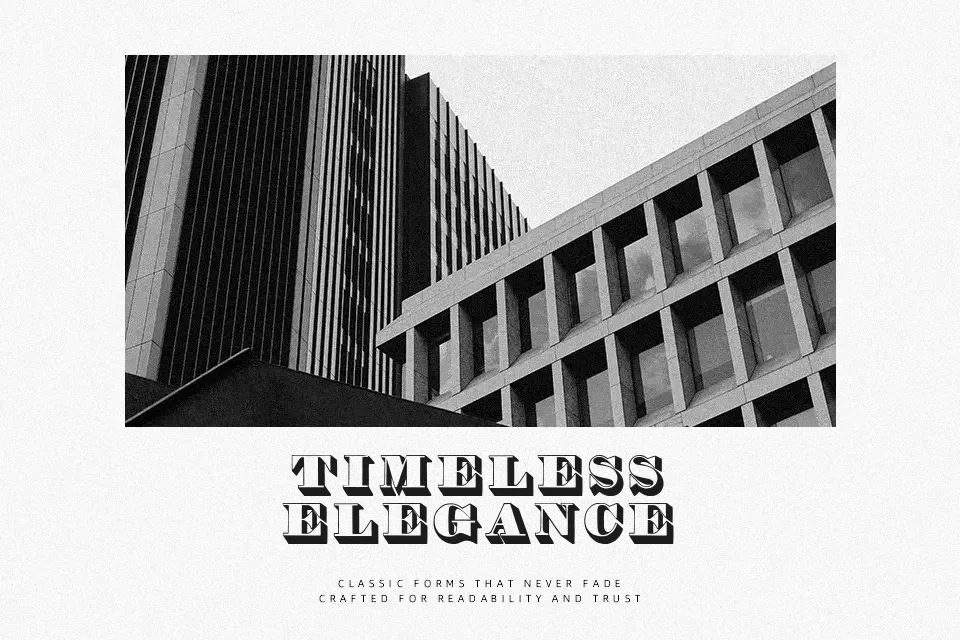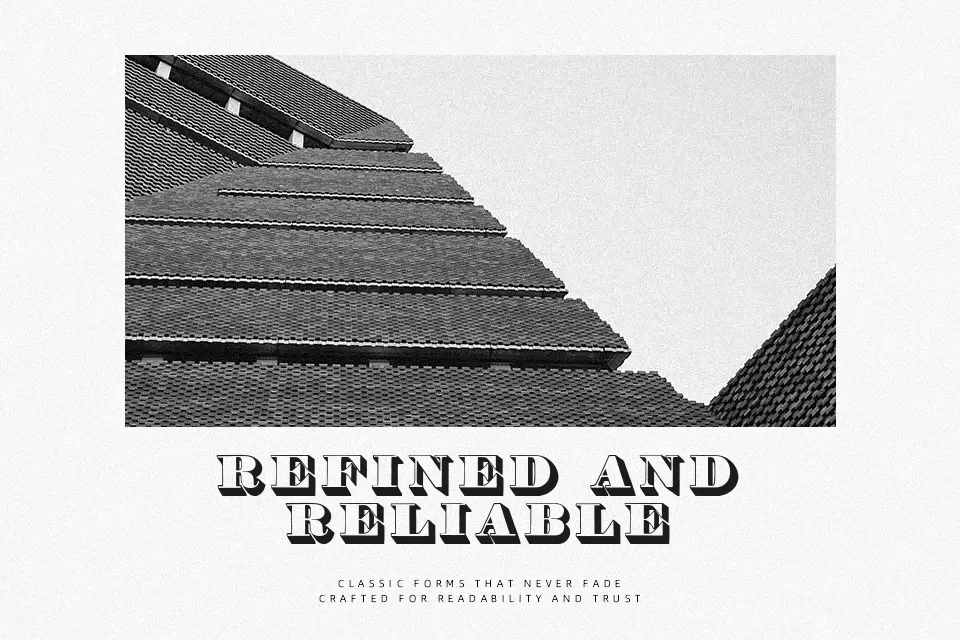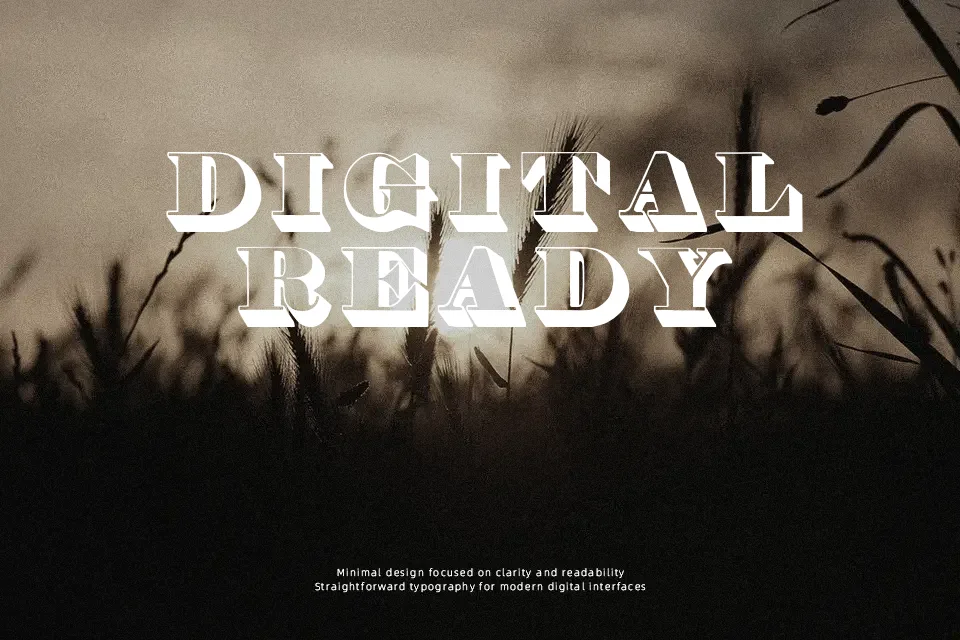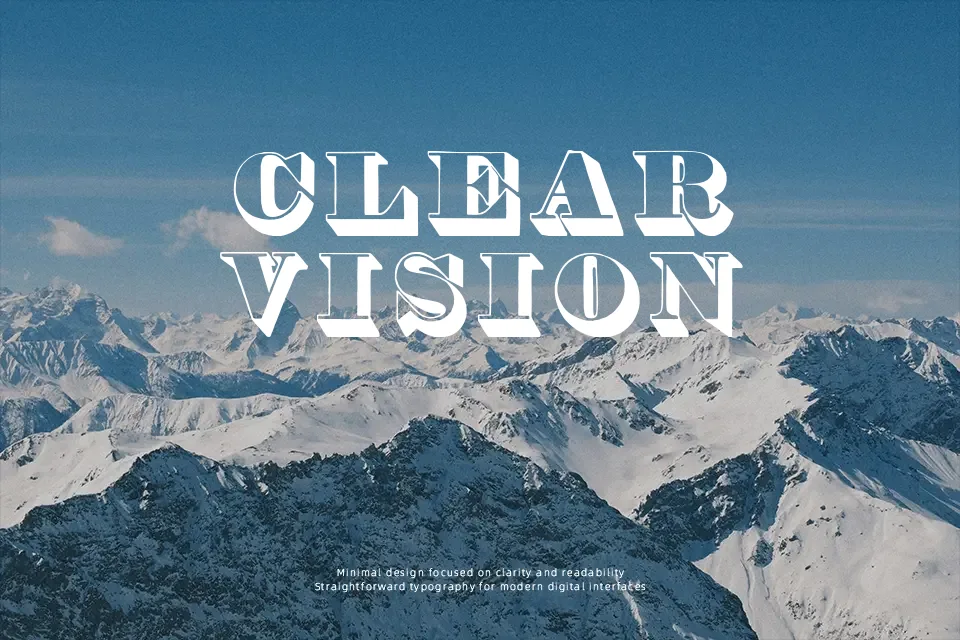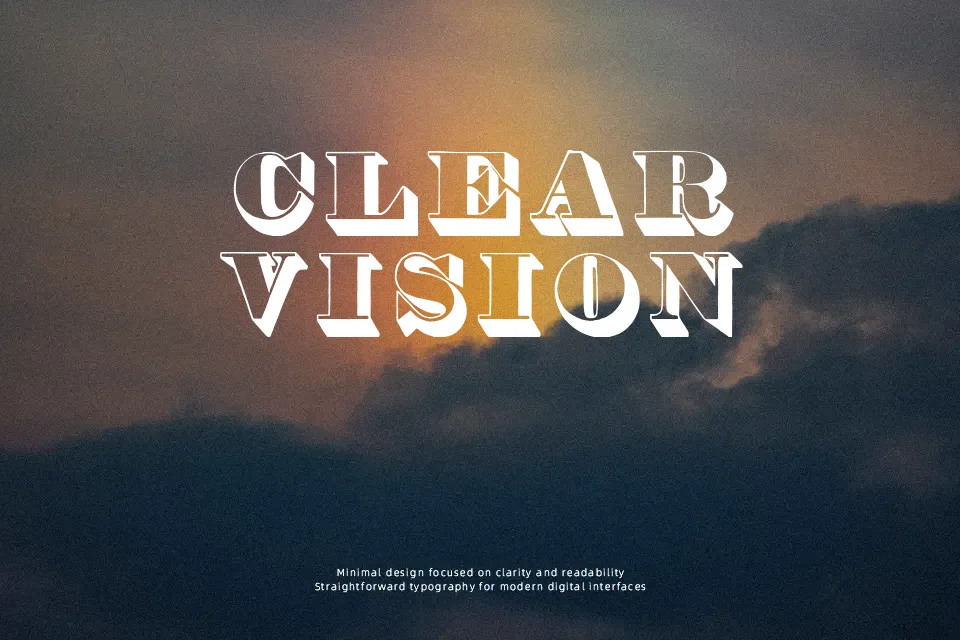
Thorne Shaded Font
Designed by Dieter Steffmann
Thorne Shaded Font showcases expanded character proportions and exaggerated stroke contrast rooted in nineteenth-century fat-face traditions. The design pairs massive vertical stems with hairline horizontal serifs, incorporating hollow cast-shadow cuts that establish tangible dimensional relief. Generous character spacing preserves individual letter boundaries, ensuring dependable readability across prominent billboard titles, heritage storefront signage, and exhibition banners. However, the deep interior shade lines cause small captions to fill in quickly, making extended paragraphs impractical to decipher. These sculptural letterforms ultimately provide exceptional vintage authority when set at large display sizes where every ornamental contour remains sharply defined.
Best For: vintage product packaging, heritage poster headlines, artisanal beverage labels
Not Ideal For: long paragraph text, small interface labels, dense editorial columns
Perfect for advertising, headline, and logo, with a bold and decorative style.